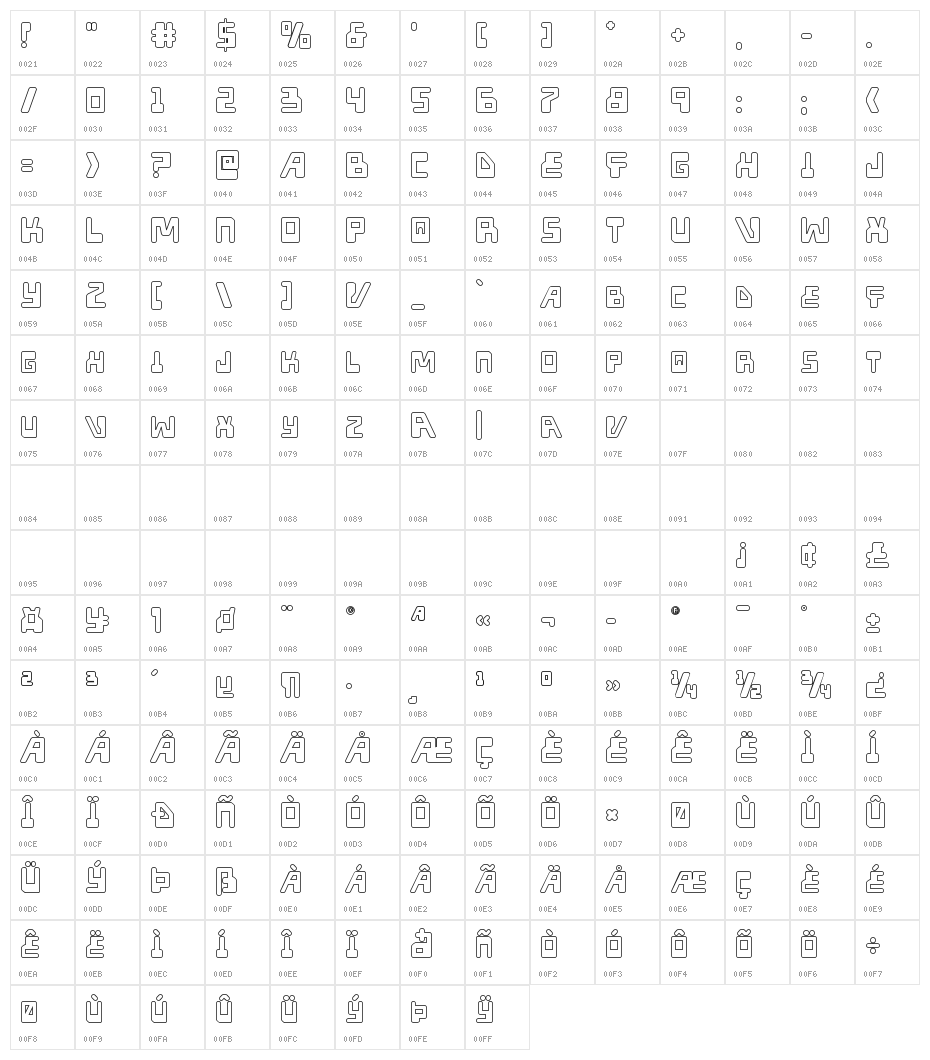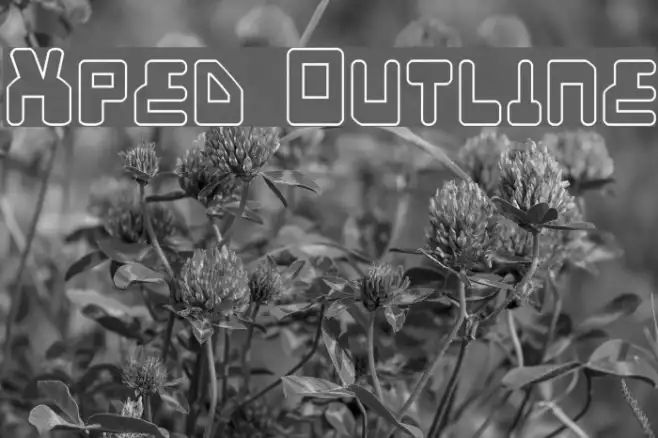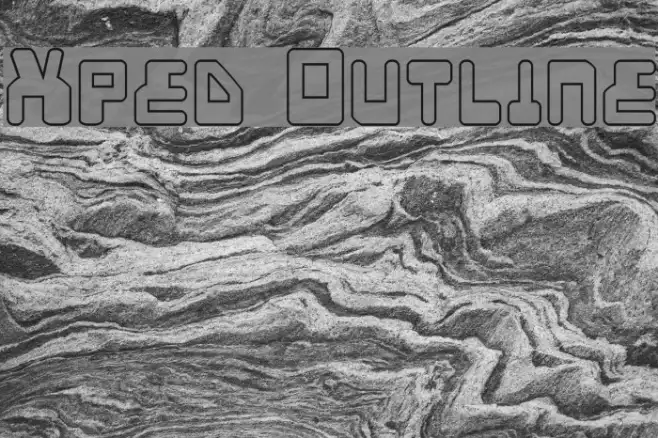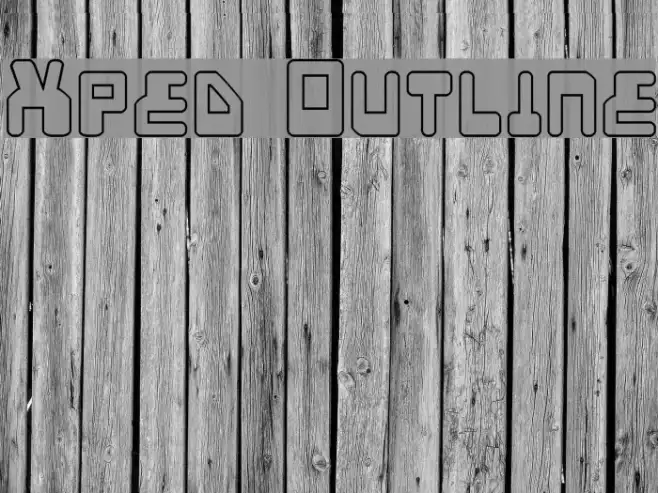
Xped Outline Font
Xped Outline Description
This font features a bold, outlined style with a futuristic and geometric appearance. Each character is crafted with a consistent line thickness, creating a uniform and cohesive look. The uppercase and lowercase letters maintain a similar height, enhancing the font's modern aesthetic. The numbers and special characters are designed to match the overall style, providing a complete and versatile set. The font's outline design makes it ideal for creative projects where a striking and eye-catching typeface is needed.
XPED-OUTLINE UPPERCASE
XPED-OUTLINE LOWERCASE
XPED-OUTLINE OTHER CHARS
| Proposed Projects | Ideal for logos, posters, and digital artwork where a modern and bold statement is desired. |